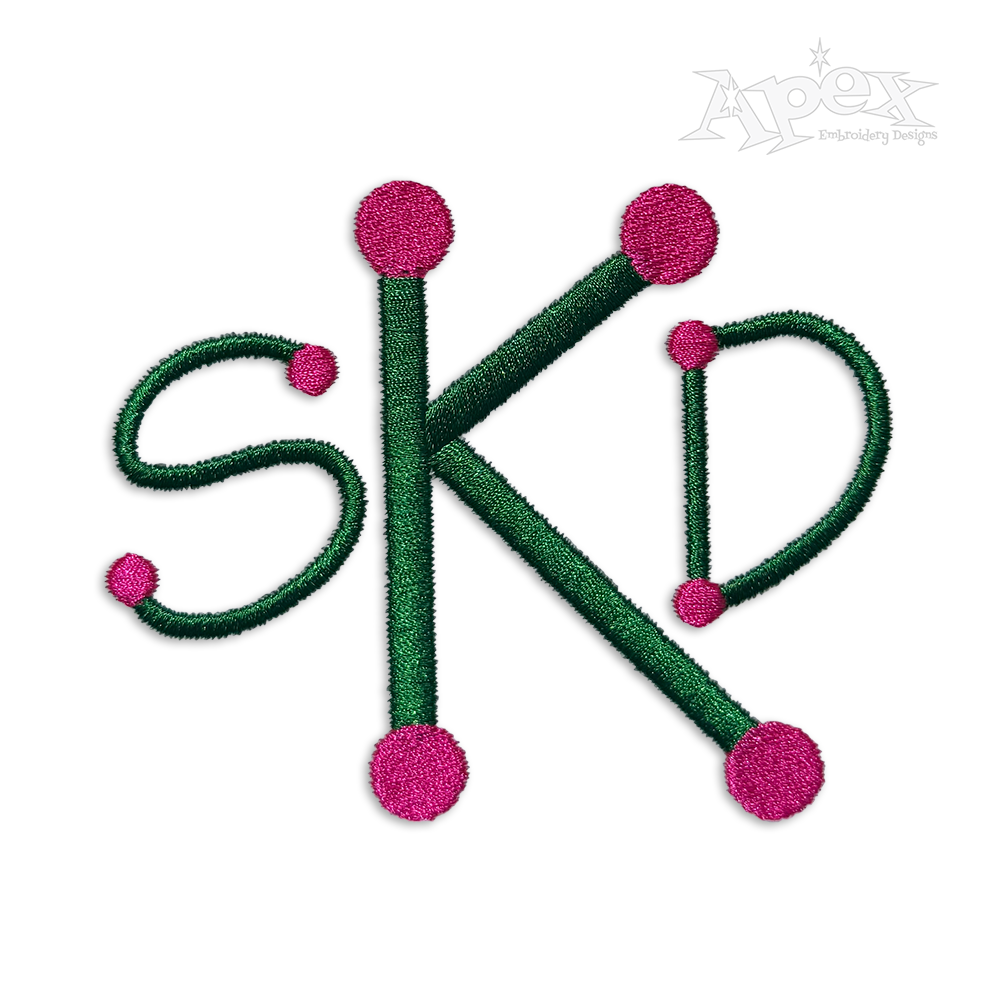
Tinker Dots Embroidery Fonts
Born from an afternoon watching dappled sunlight dance across crisp linen, Tinker Dots was envisioned as a celebration of spirited elegance and artisan whimsy. In digitizing this two-color embroidery alphabet, our studio set out to merge the joyful nostalgia of vintage storybook typography with the exacting perfection of modern luxury monogramming. Each uppercase letter pairs bold, graceful foundational strokes with charming satellite dots—yielding a vibrant visual melody that brings bespoke character to personalized embroidery and heirloom creations.
Every letter in the Tinker Dots collection has been individually digitized, manually balanced, and calibrated across three uppercase display sizes to ensure clean, balanced stitching on a variety of hoop dimensions:
Project Ideas for Tinker Dots Embroidery Fonts
Tinker Dots Embroidery Fonts Craft & Letterform Details
The beauty of Tinker Dots lies in its structural harmony. Rather than mechanically applying automated circles to existing letterforms, our digitizers hand-drafted each character stem and satellite dot as a cohesive artistic unit. The primary strokes feature rich, lustrous satin stitch columns with directional angle changes that catch and reflect ambient light, giving every curve and crossbar genuine tactile depth.
Because two-color embroidery demands absolute registration accuracy, we developed specialized underlay profiles that secure the fabric grain before the final top stitching is applied. Push-and-pull compensation has been individually calibrated between the solid stems and the surrounding circular dots, ensuring that the dots retain their crisp, circular geometry without drifting or pinching the fabric. The result is a smooth, balanced stitchout that celebrates both joyful playfulness and timeless artisan precision.